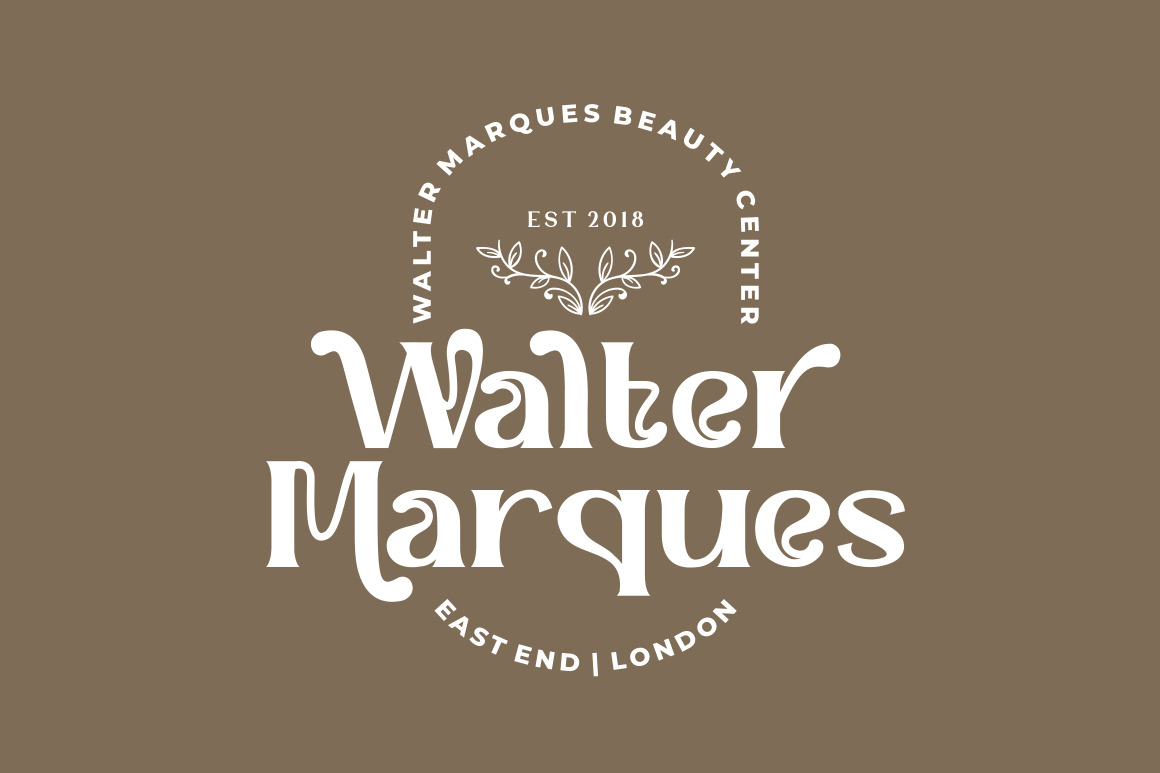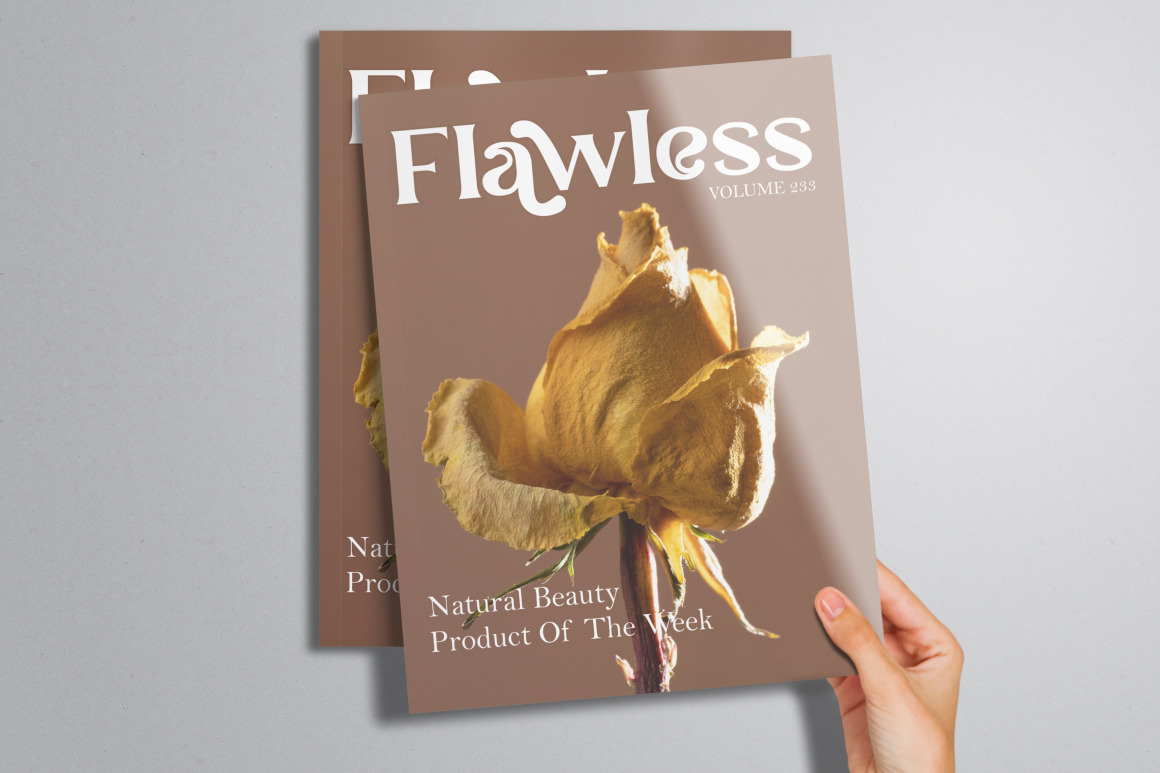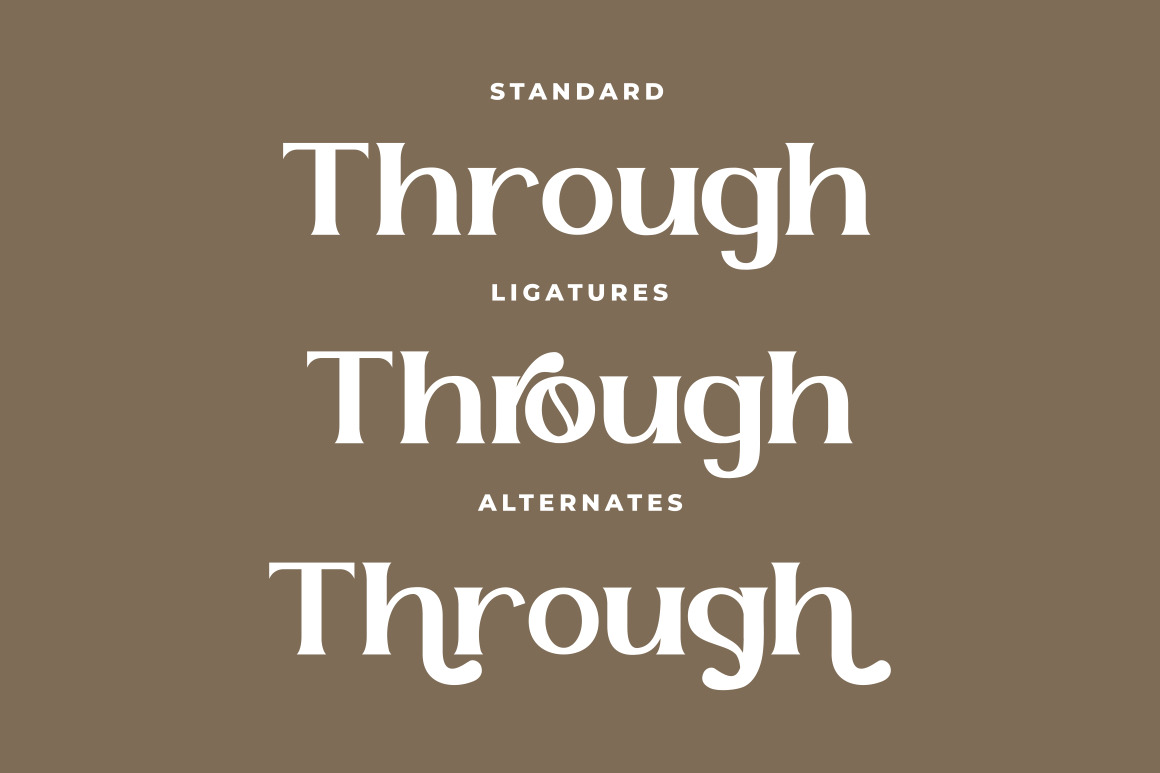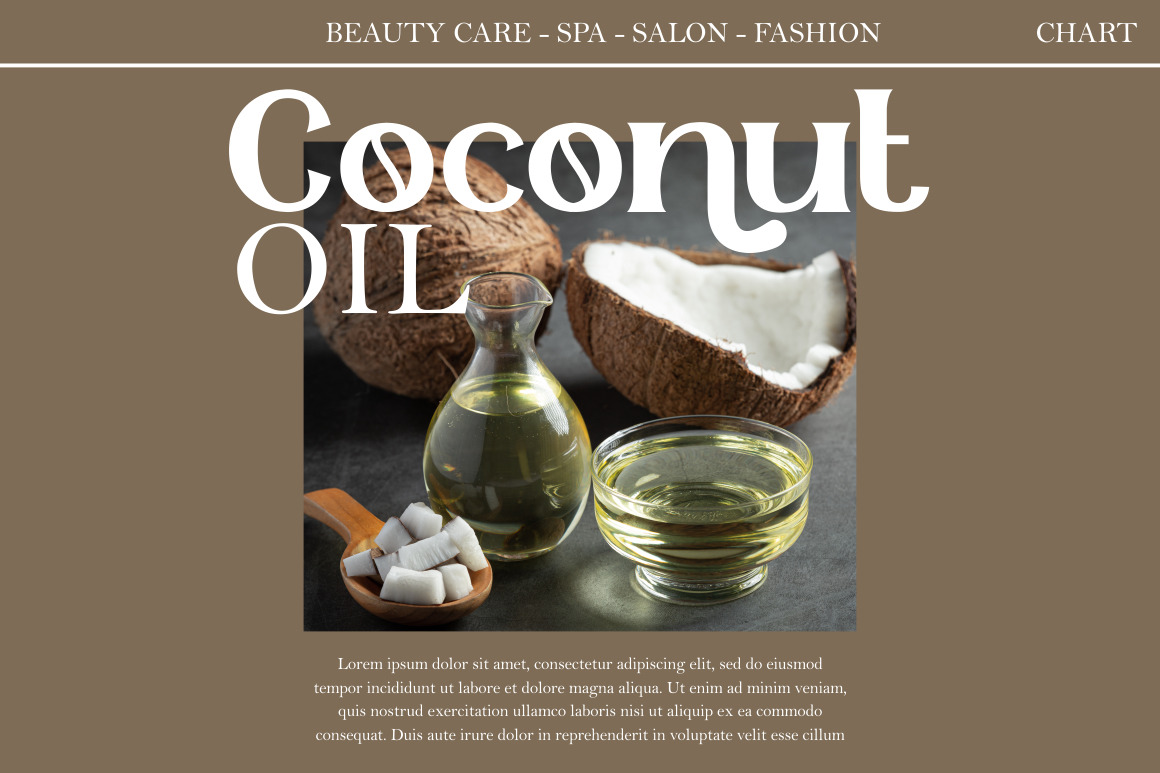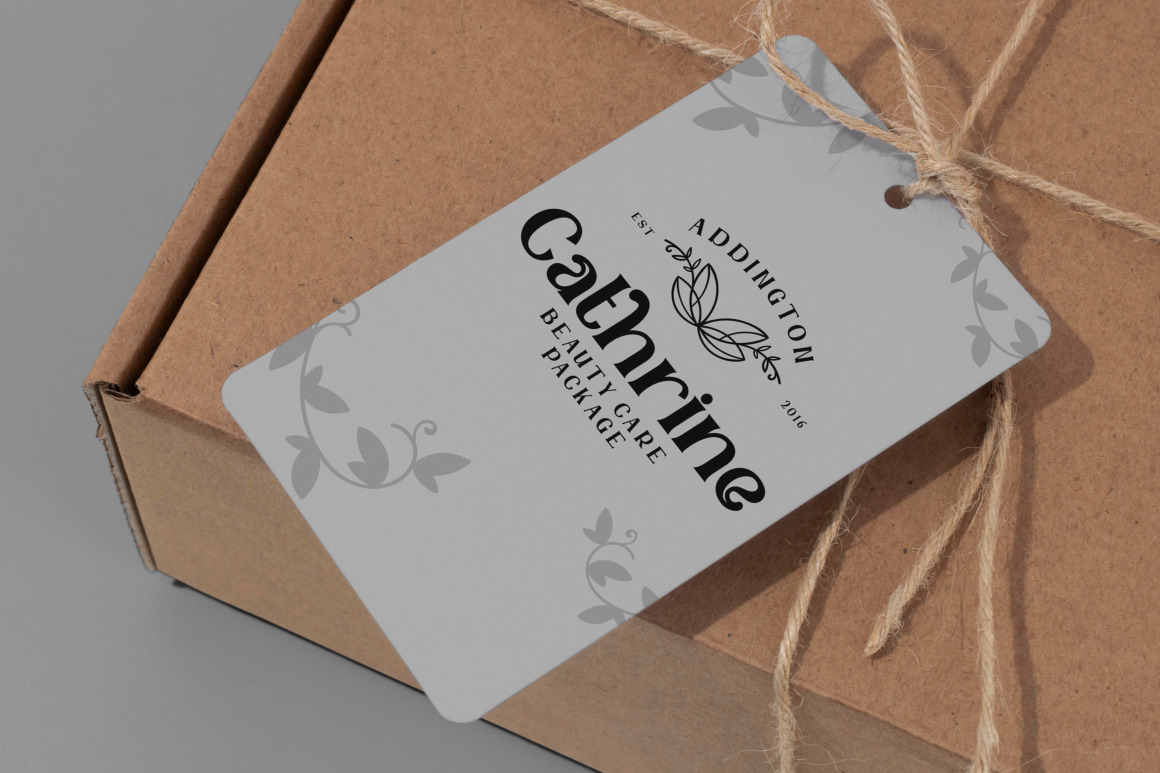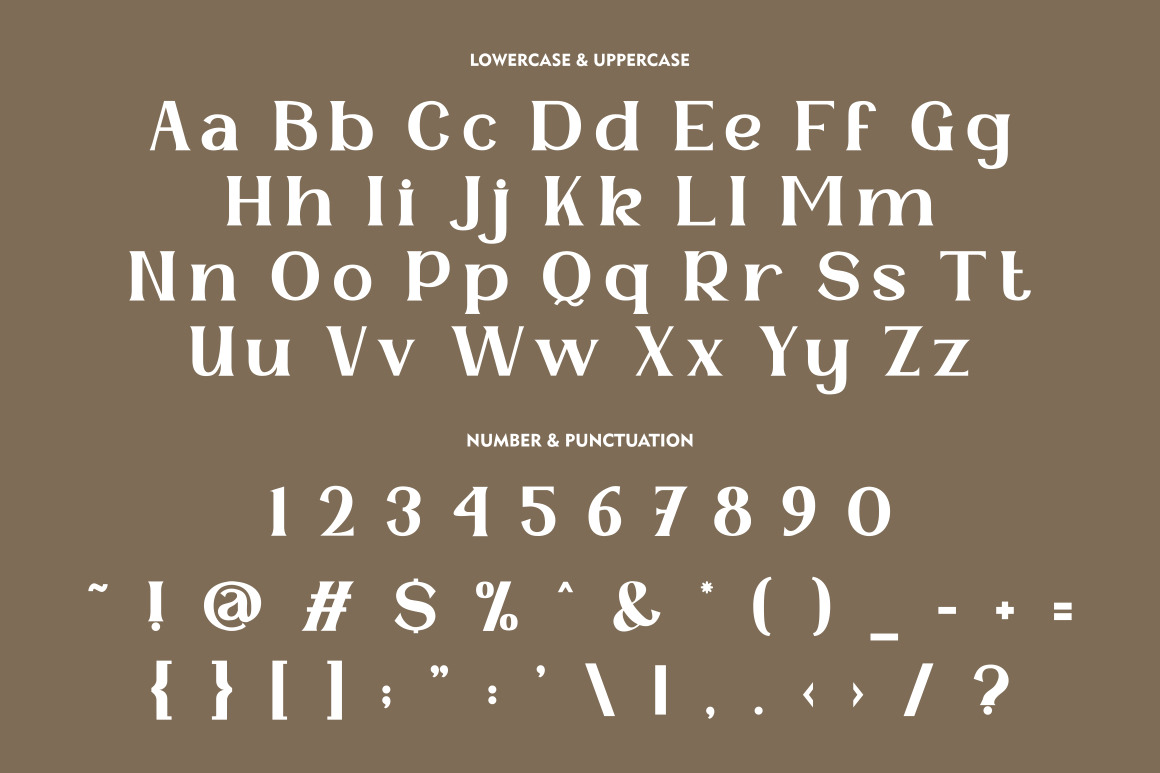
Behooved - Ligature Serif Font
Behooved - Ligature Serif Font. Behooved is equipped with swash, stylistic and titling alternates as well as with standard and discretionary ligatures. Behooved is a ligature serif font with strong character and soft features.
Behooved is a stylish serif font that is both retro and great ligature font. It's thick curves give a groovy vibe with the serifs bringing it slightly back to traditional. Comes with alternatives and ligatures, helps to create stunning logos, quotes, posts, blog posts. branding projects, magazine imagery, wedding invitations, and much more.
Uppercase
Lowercase
Opentype (Alternates And Ligatures)
Number, Punctuation And Symbols